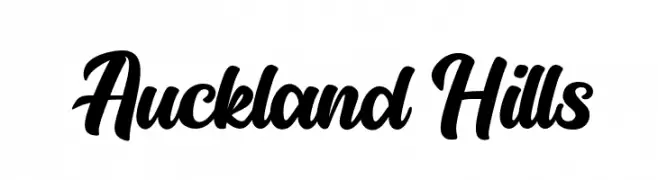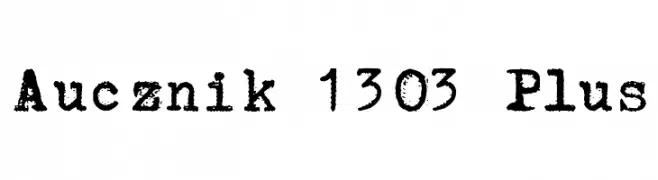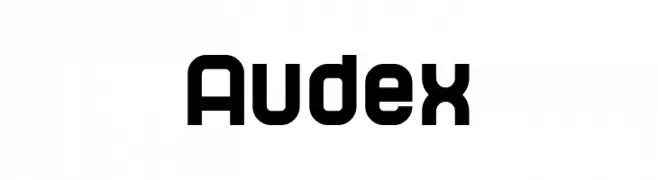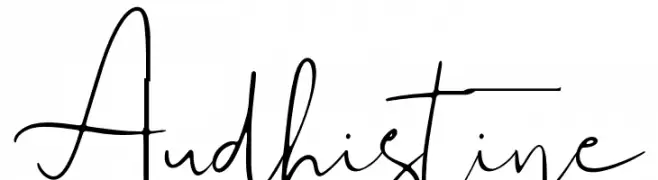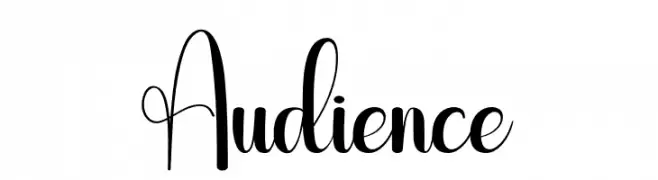
A playful, handwritten font with a casual and friendly style.
A bold, dramatic serif font with sharp serifs and unique flourishes.
A bold, modern script font with interconnected characters and a fluid, elegant style.
A whimsical, decorative font with bold, playful curls and exaggerated serifs.
A bold, geometric font with rounded edges and a modern, futuristic style.
A modern, handwritten script font with a casual and flowing style.
An elegant, cursive font with flowing, elongated strokes and decorative loops.